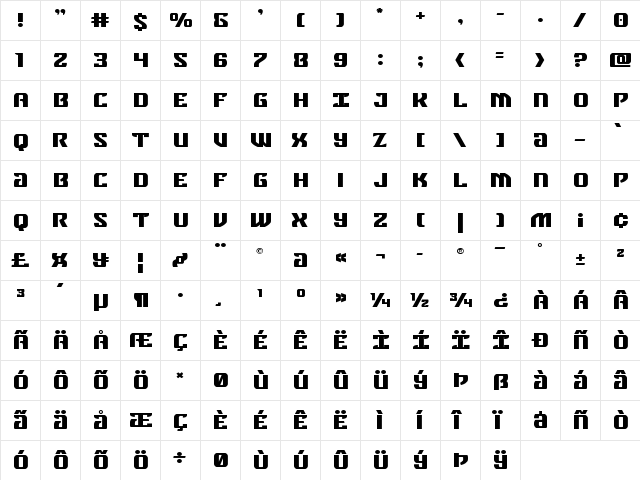
Federal Blue Expanded Expanded
Design Context for Federal Blue Expanded Typeface
Federal Blue Expanded is a composed and adaptable typeface that performs quietly and consistently across a wide range of design contexts.